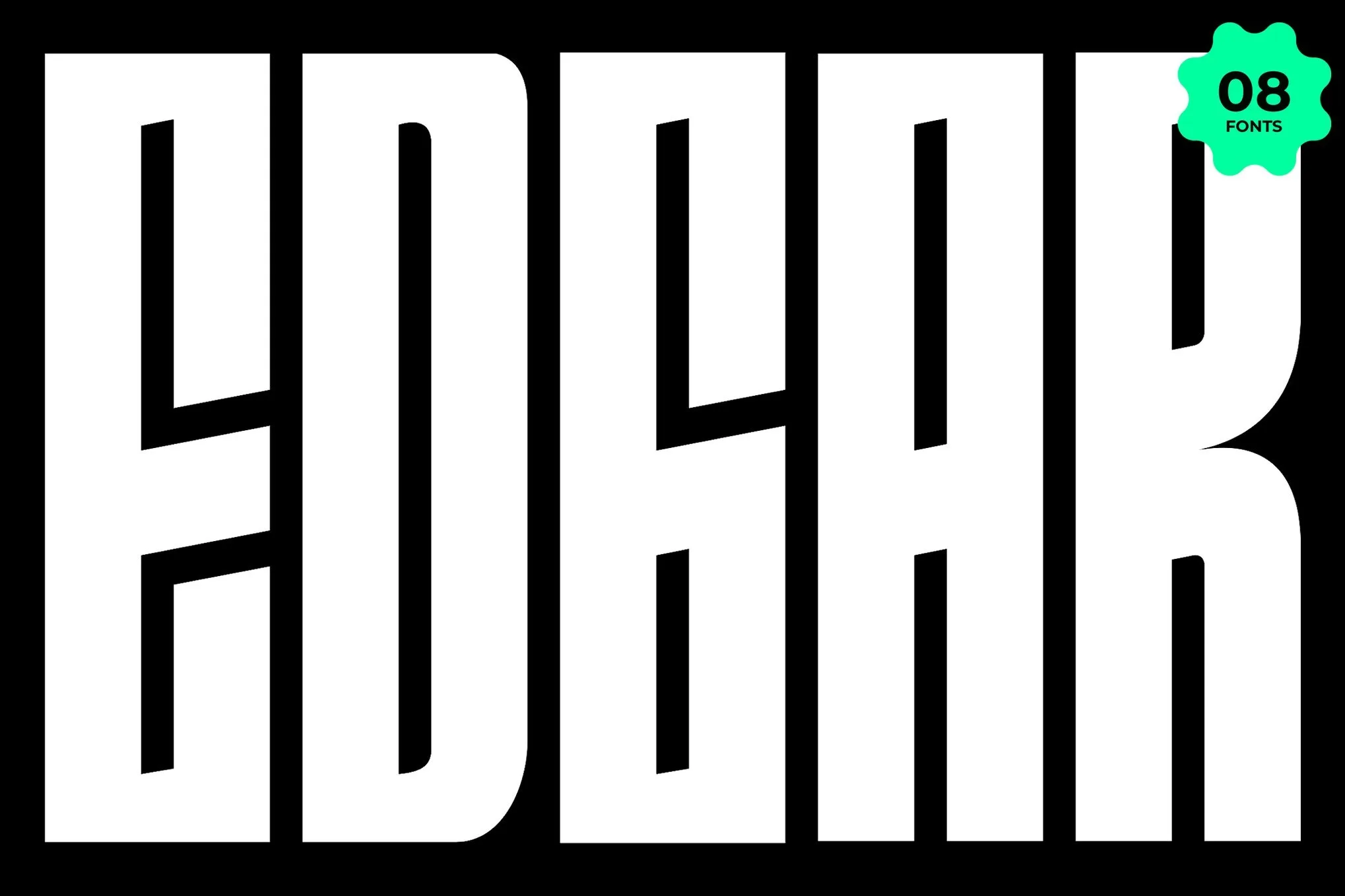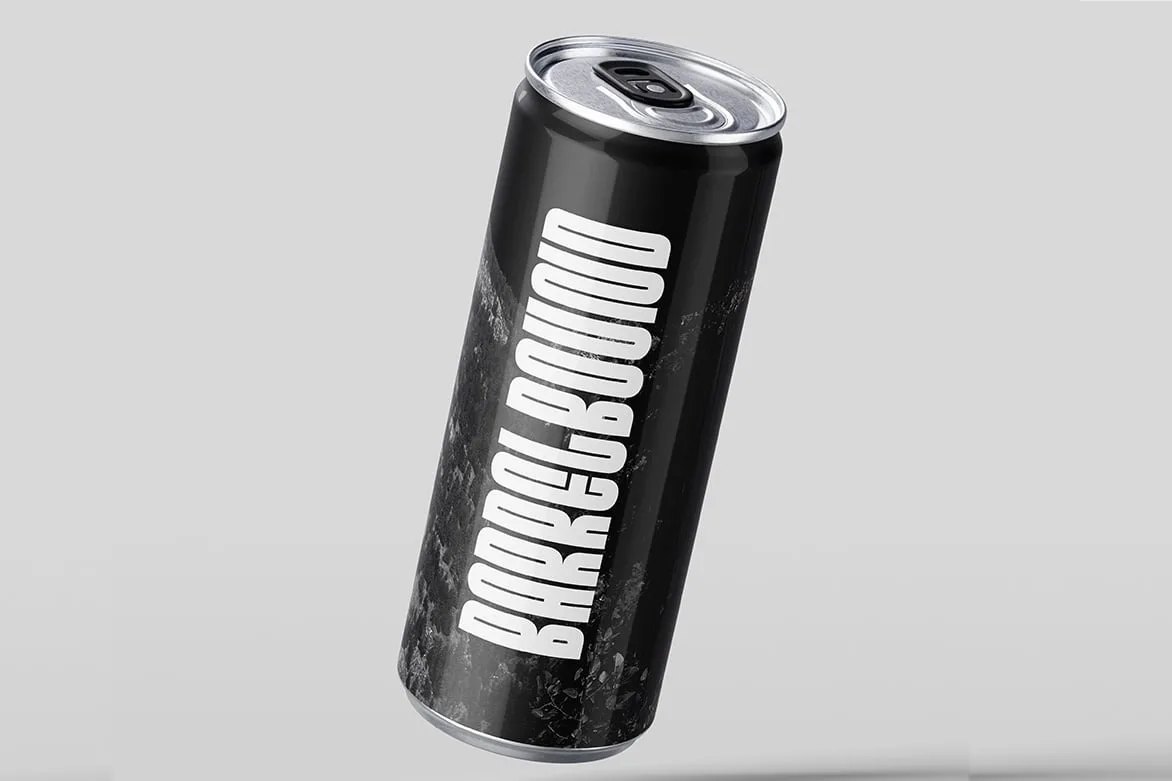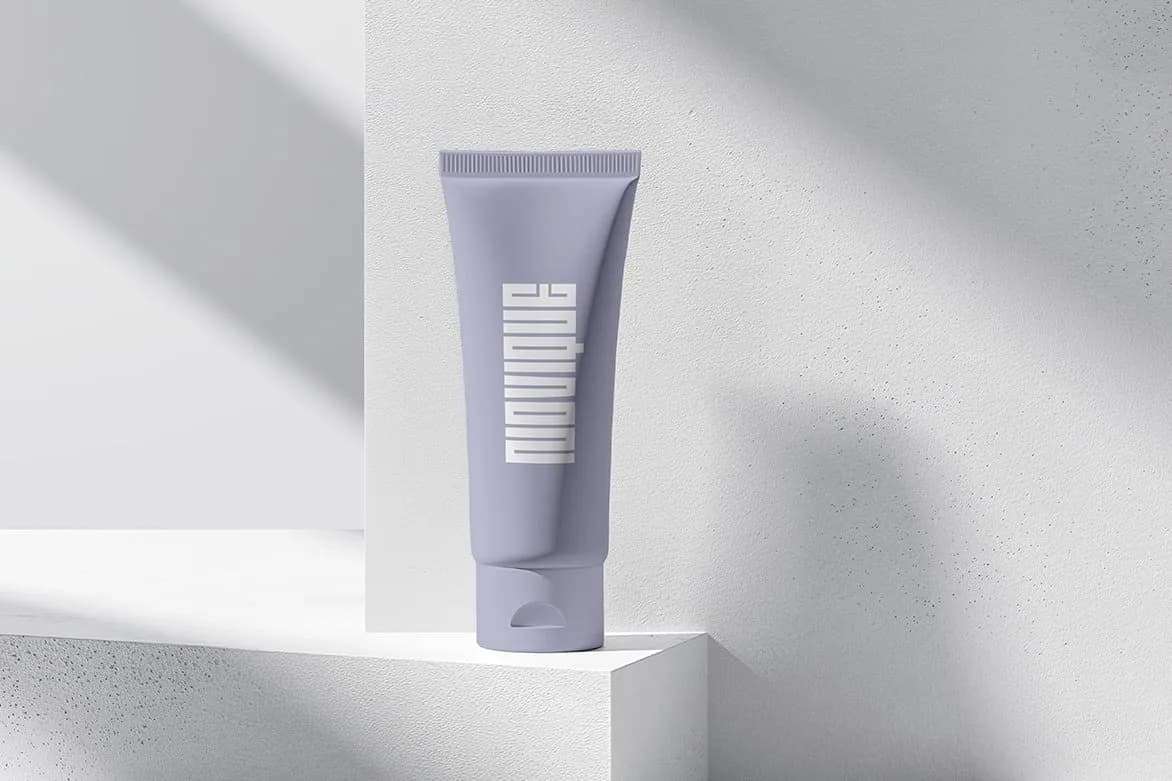
Edgar
0Edgar is a modern sans-serif font that embodies a futuristic aesthetic, designed specifically for high-visibility contexts. Its tall and elegant letterforms provide a striking presence, making it particularly well-suited for display purposes such as headlines, posters, and social media graphics. The italic style enhances its dynamic character, allowing it to convey a sense of movement and energy that is perfect for branding and marketing materials.
This font features carefully crafted kerning that ensures optimal spacing between letters, contributing to its overall legibility in various applications. Whether used in web and app UI, video titles, or promotional graphics, Edgar maintains clarity and impact. Its high-impact design is particularly effective for tech-oriented projects, including SaaS dashboards and product launches, where capturing attention quickly is essential.
Additionally, Edgar's unique combination of tall, modular forms and a luxurious feel makes it a compelling choice for editorial layouts and packaging. It works seamlessly in both digital environments, such as Instagram and TikTok, and traditional print formats. With support for Latin languages, Edgar offers versatility for a range of creative endeavors, making it a distinctive choice for designers aiming to elevate their visual communications.